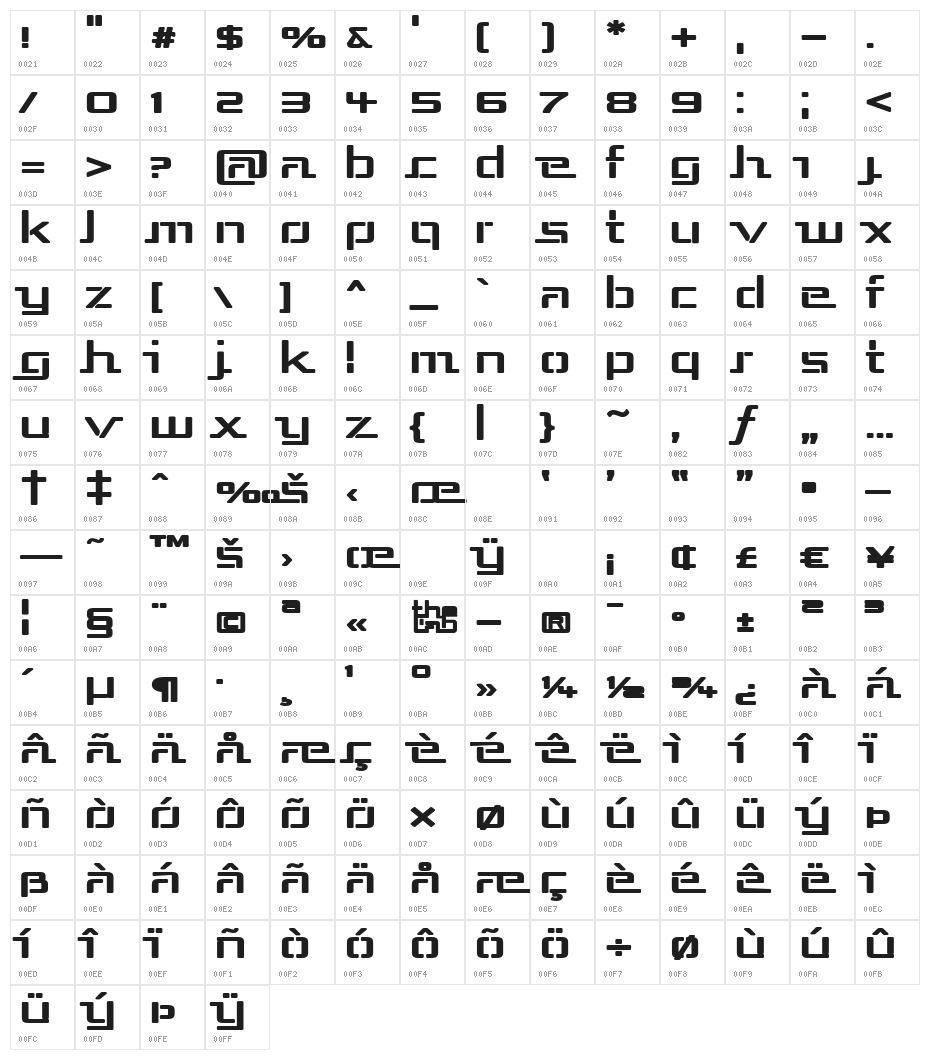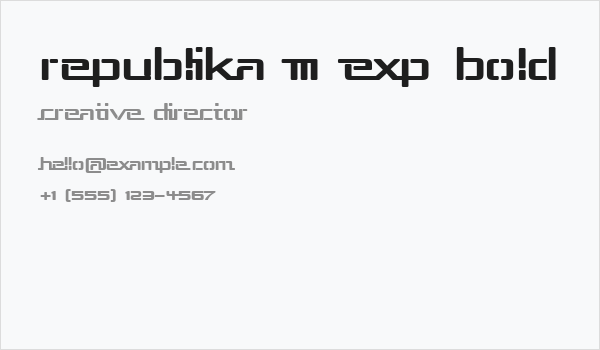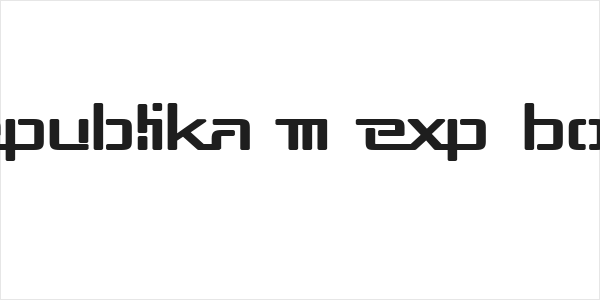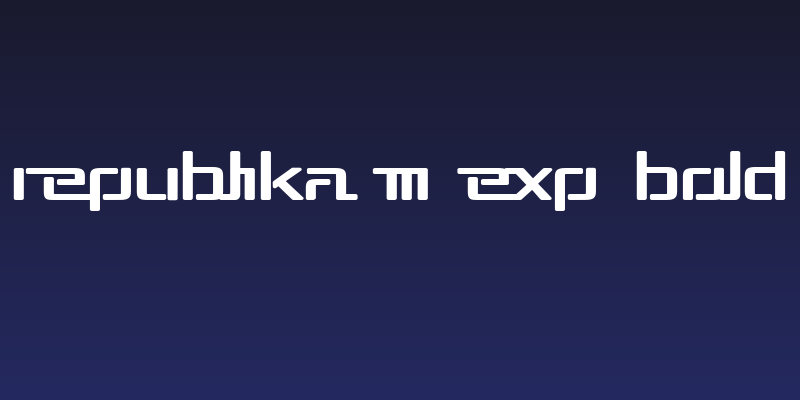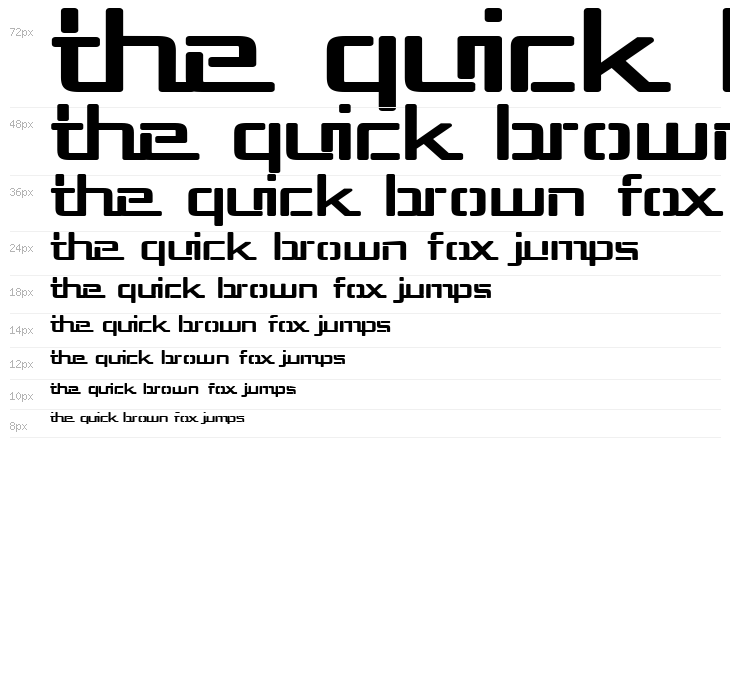
Republika III Exp Bold Font
Republika III Exp Bold Description
This font features a bold and expanded style with a futuristic and geometric design. The characters are constructed with clean, straight lines and sharp angles, giving it a modern and tech-inspired appearance. The uppercase and lowercase letters maintain a consistent height, while the numbers and special characters integrate seamlessly with the overall design. The font's structure is robust, making it suitable for impactful visual statements. Its unique style is both eye-catching and versatile, ideal for projects that require a contemporary and dynamic look.
| Proposed Projects | Ideal for technology branding, sci-fi posters, video game titles, and modern advertising campaigns. |